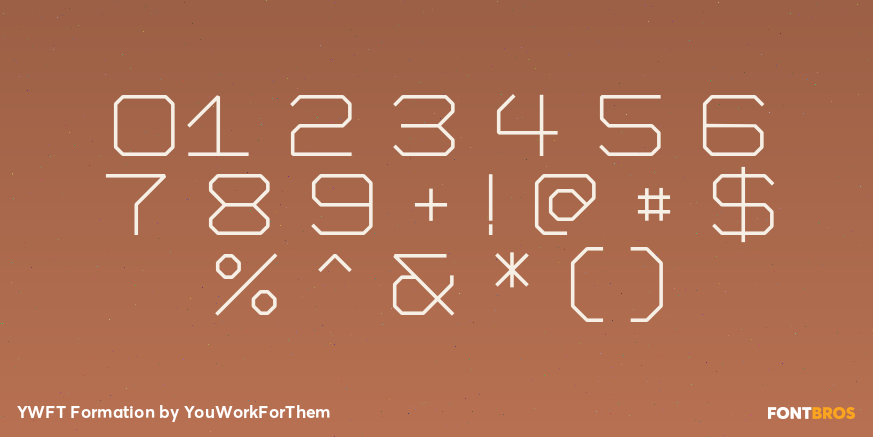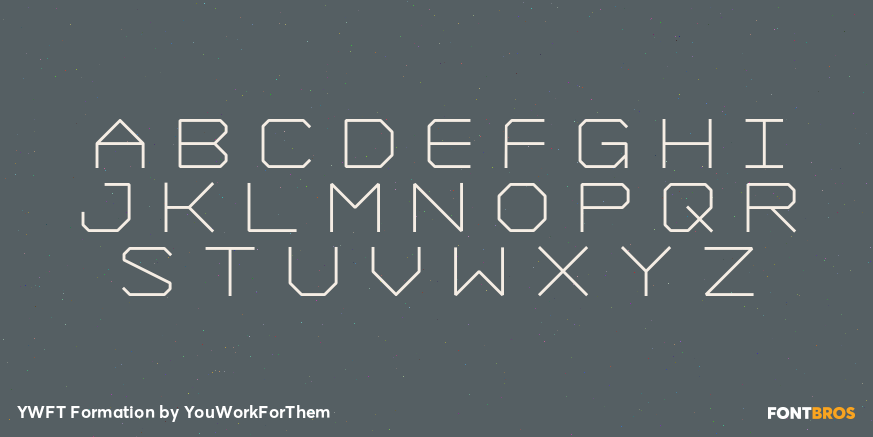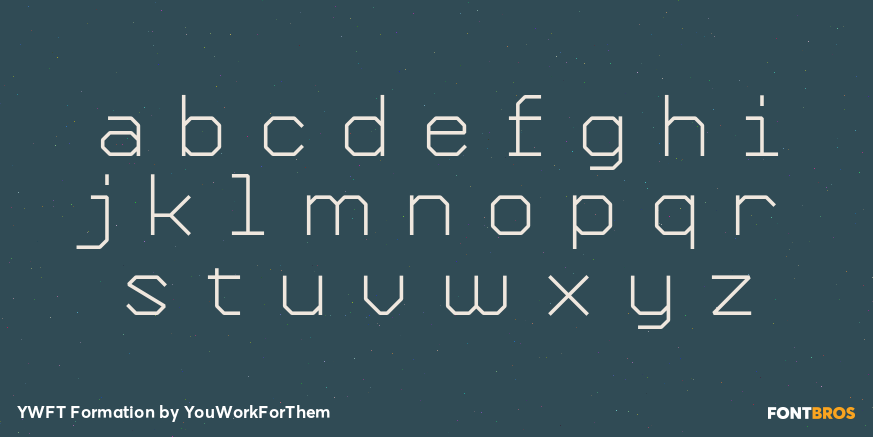
YWFT Formation
Font Family by YouWorkForThem
Influenced by an appreciation for Ed Ruscha and AutoCAD, YWFT Formation is an extensive typeface design that takes those principles and applies them in a unique way. Despite having a machine-like, masculine slickness on the surface, YWFT Formation can also be quite feminine and slim when using the Thin and ExtraLight weights. YWFT Formation has been used numerous times by ESPN and the magazines W. and Wired. YWFT Formation was originally designed in 1999, and converted to Opentype in 2010. Designed exclusively by Michael Cina and YouWorkForThem.